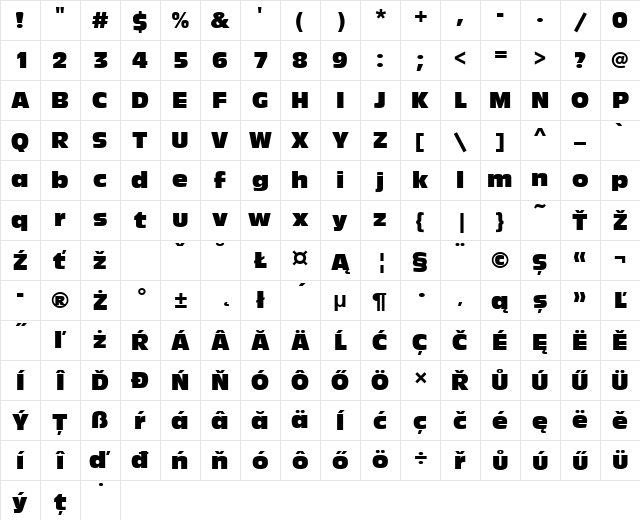
AntiqueOliTEECom Regular
Design Context for AntiqueOliTEECom
AntiqueOliTEECom wears its vintage influences proudly, with letterforms that recall mid-century signage, classic packaging, and nostalgia-driven design.
Font Pairing: Combine AntiqueOliTEECom with a simple slab or neutral sans - period-accurate companions reinforce the vintage feel without competing for attention.
Pro Tip: Lean into AntiqueOliTEECom's period character by pairing it with aged paper textures, muted colour palettes, and vintage illustration styles.